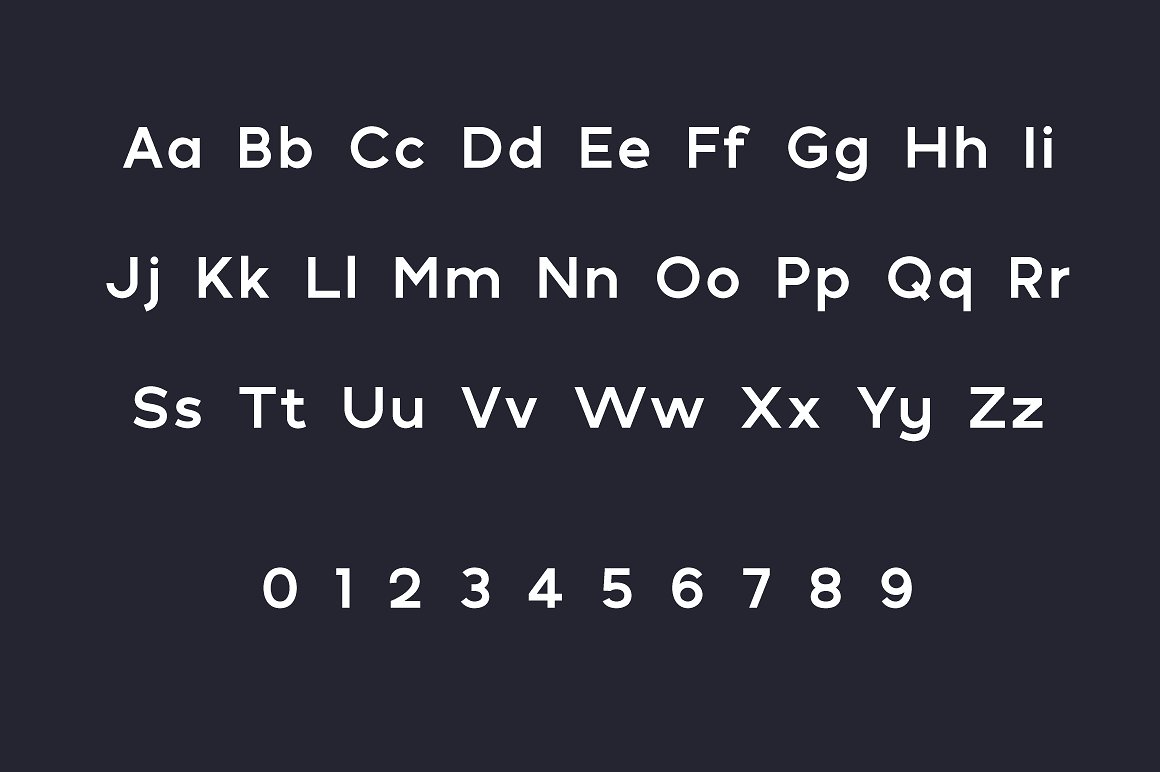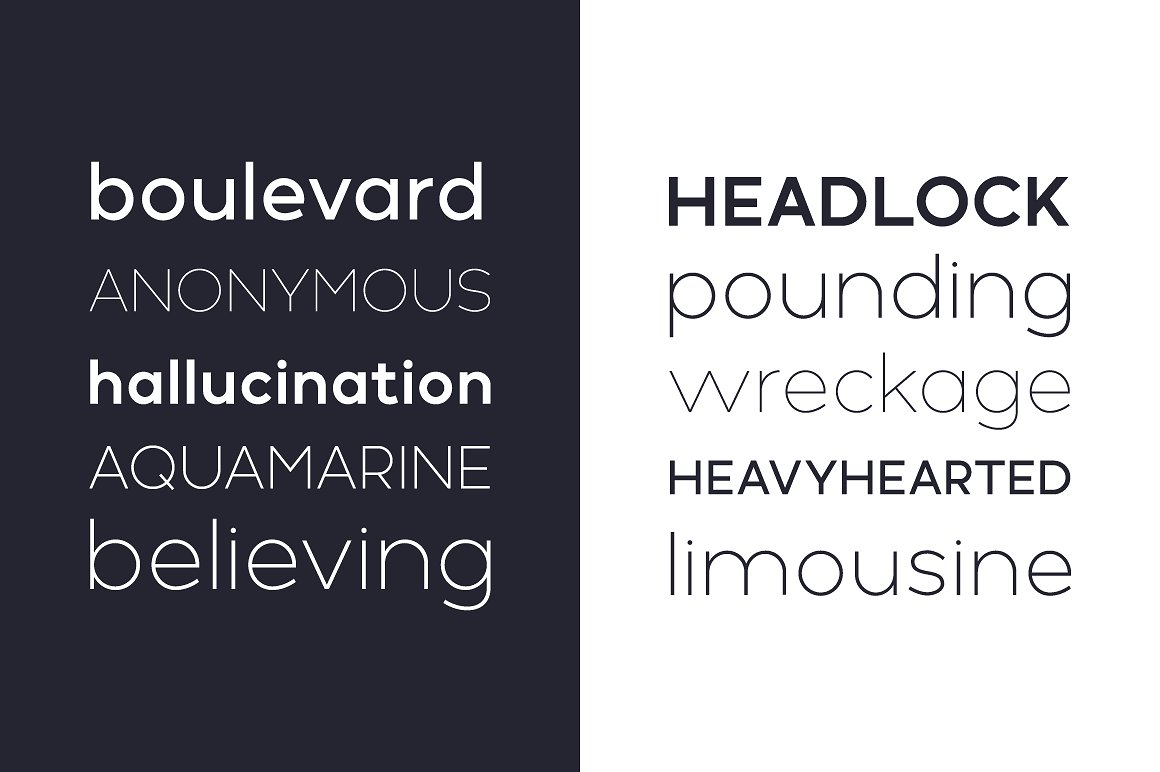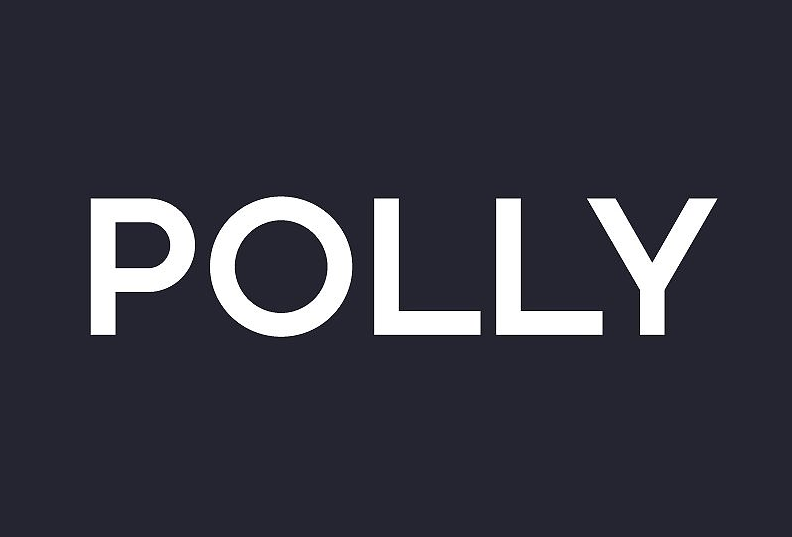
Polly – Regular
Introducing Polly Font! Polly designed by Reghardt , this is a premium font, are sold on creativemarket, but it was great, it is free today for download. Polly is a geometric sans. Polly has been updated and will continue with updates as additional characters and features are developed and improved. Polly is perfect for branding projects, homeware designs, product packaging…